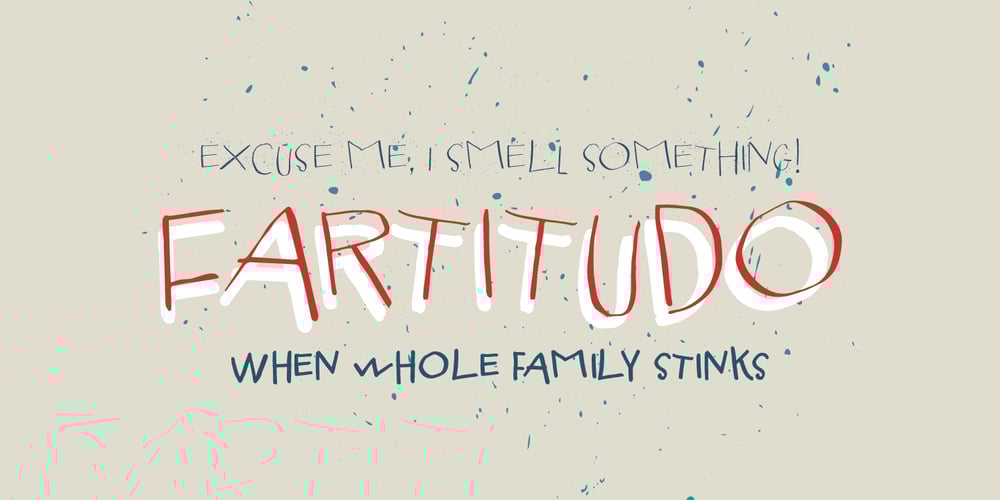
Fartitudo Font Family was designed by Dusan Jelesijevic and published by Tour De Force. Fartitudo contains 3 styles and family package options. A bit provocative, catchy and bouncy family for modern package designs, posters, labels, t-shirts etc.